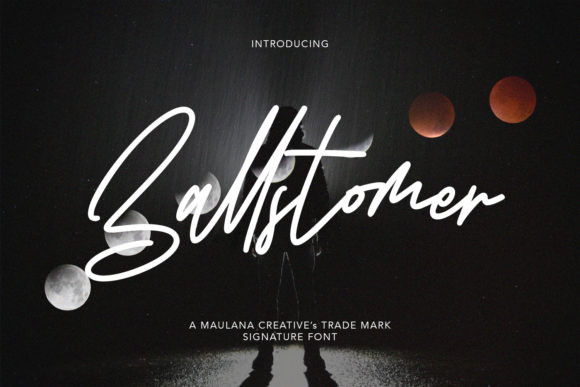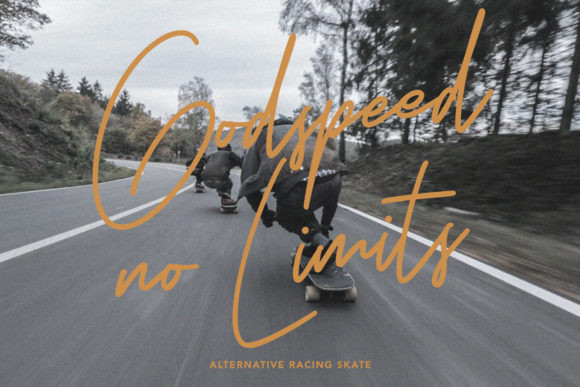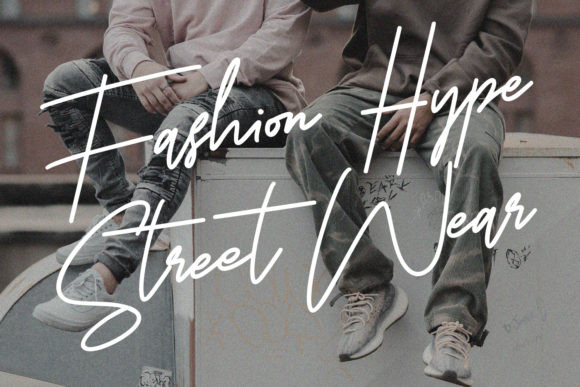
Ballstomer Font
Ballstomer is a fashionable, elegant and cursive handwritten font. It looks beautiful on a variety of designs requiring a personalized style, such as wedding invitations, thank you cards, weddings, greeting cards, logos and so on.